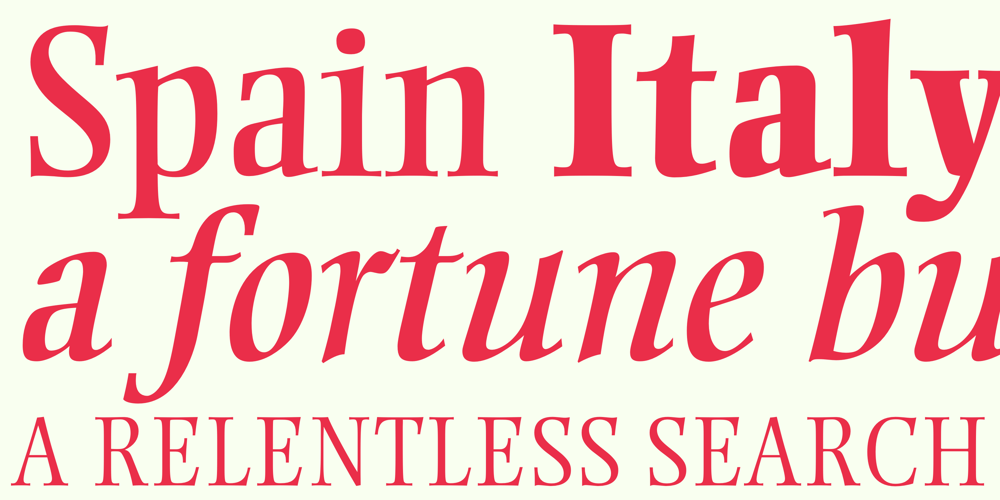
Ellington MT Font Family was designed by Michael Harvey and published by Monotype. Ellington MT contains 8 styles and family package options. Ellington was designed by jazz lover, Michael Harvey for Monotype in 1990, and named after the great band leader, Duke Ellington. From experience gained carving letters in stone and drawing them for book jacket designs, Michael Harvey has created a condensed typeface combining the clear-cut sparkle of a modern face with some of the lively features of the broad-edged pen. Ellington has a fresh elegance that is particularly effective in display, while its compressed forms will prove economical in text settings. The Ellington font family has narrow characters with strong vertical strokes and angular calligraphic traits. Ellington is a lively face and an appropriate font choice for advertising and book work.Ellington has a sans serif companion family, Strayhorn.